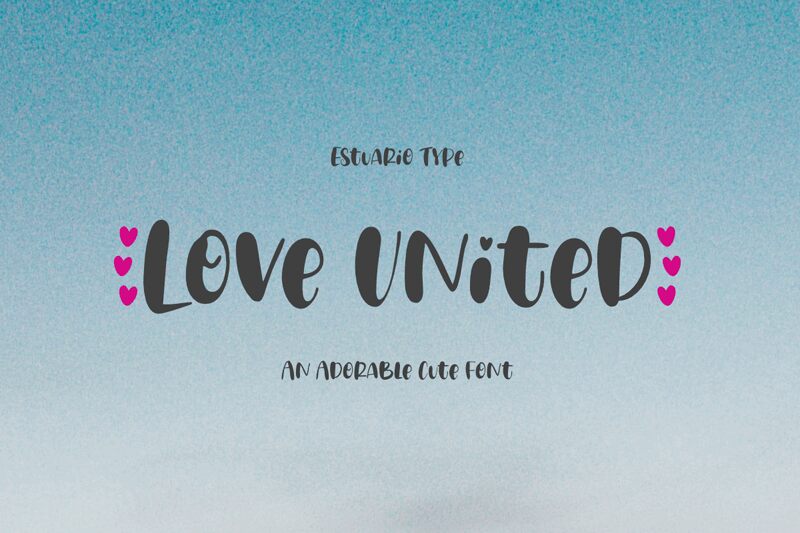
Love United is a bold, cartoon-style display font created by Estuario Type. This playful typeface features thick, expressive strokes and rounded edges that exude a sense of warmth and whimsy. The distinct, almost hand-drawn aesthetic gives the font a charming, approachable personality, making it an ideal choice for projects seeking a lively, lighthearted tone.
The bold weight and emphasis on positive space lend themselves well to eye-catching headlines, logotypes, and branding applications. Love United's unique character shapes and dynamic flow could also be particularly effective in children's media, greeting cards, and other designs aiming to capture a playful, cheerful mood.